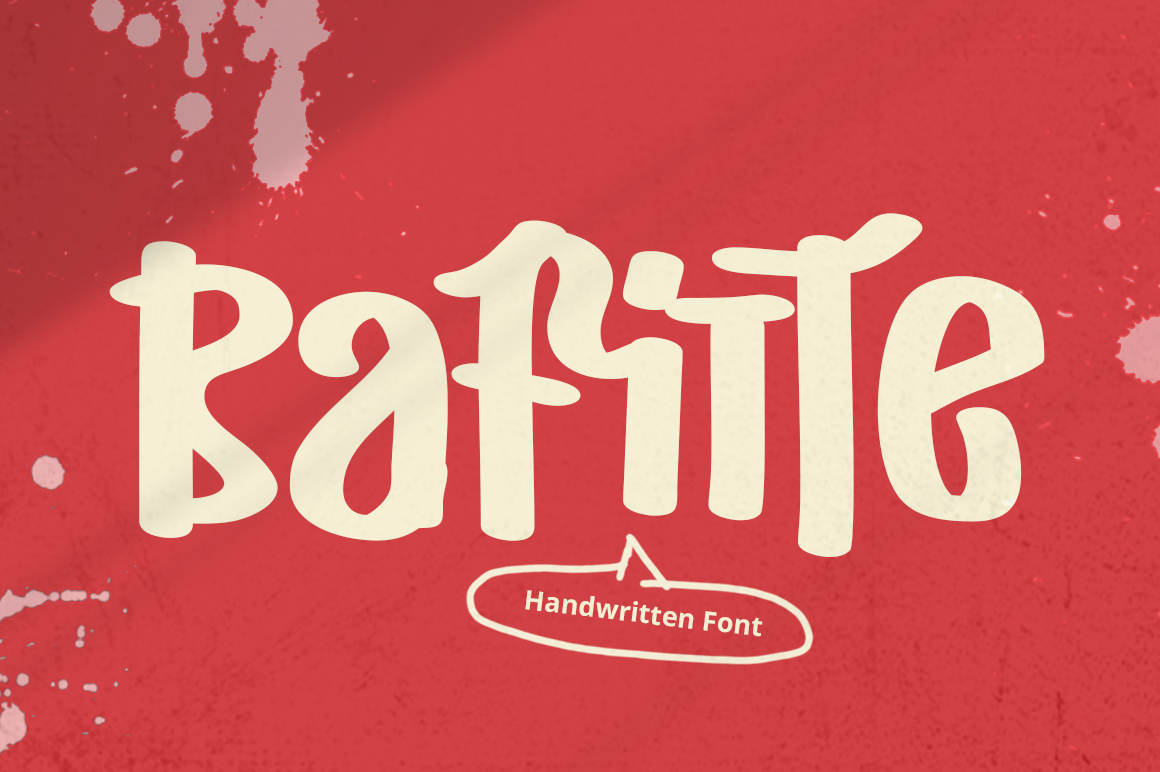
Bafitte Font
Bafitte is a bold handwriting font that captures raw energy with a modern twist. Its expressive strokes and textured edges bring a handcrafted feel, making every word look alive and full of character. Designed to stand out, Bafitte blends uniqueness with readability, making it perfect for eye-catching headers, impactful advertising banners, and bold branding projects. With its playful yet confident personality, Bafitte adds a delightful edge to any design—whether you're building a brand identity, creating social media visuals, or crafting standout packaging. It’s a font that doesn’t just communicate—it makes a statement.
Unique Rough Handwriting Font